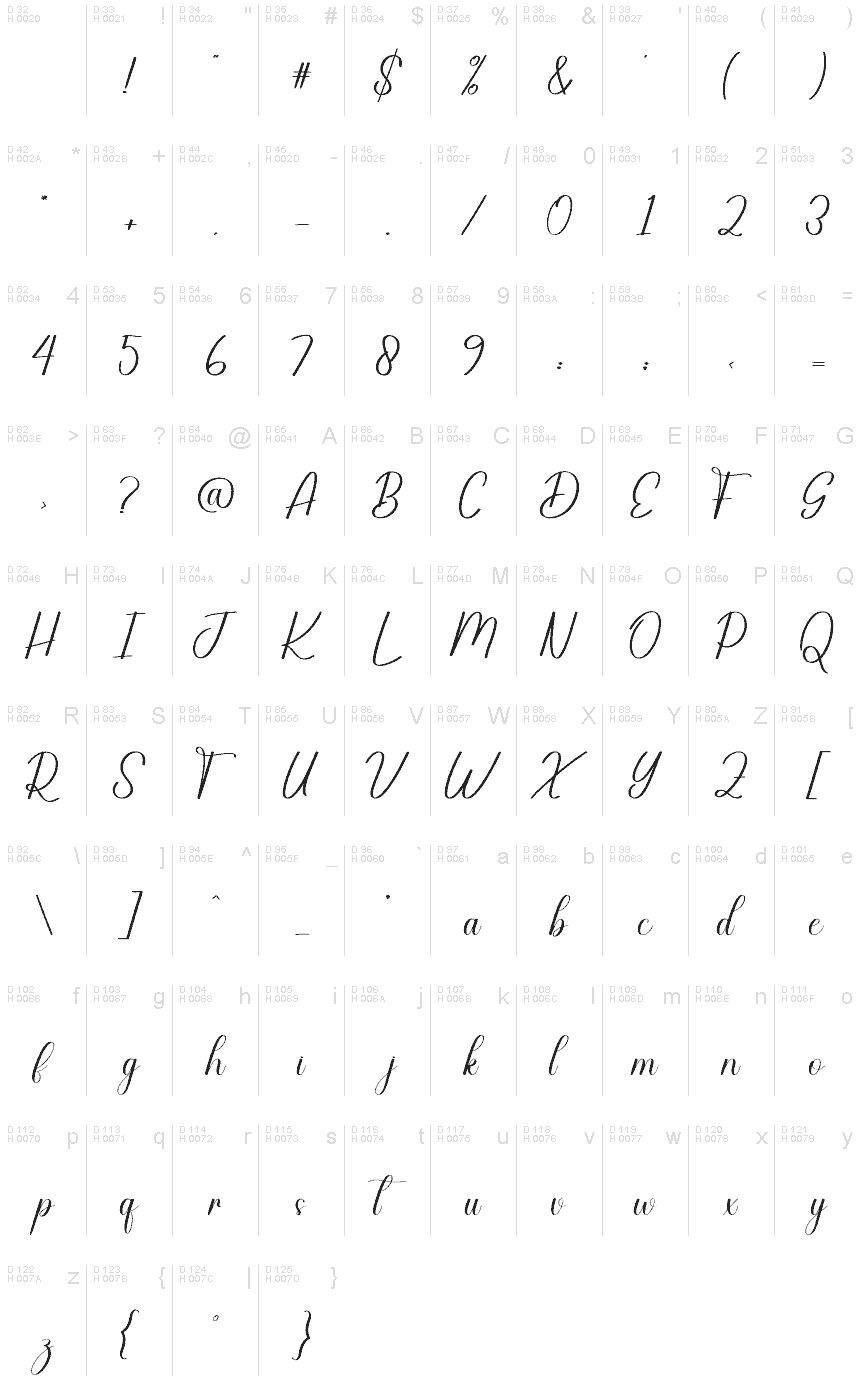
Badgers
Badgers font is an elegant free handwritten font from Scratchones with a flowing and formal style. The script type font features sophisticated use of condensed characters, rounded corners, and graceful curves that lend the lettering an artistic vibe. The masterful combination of the various elements makes this stylish font stand out.
Badgers can design wedding invitations, greeting cards, certificates, coupons or branding projects where a subtle aesthetic touch is required. It’s also great for flyers and brochures promoting beauty salons & products. Other great uses include typographic posters, banners or adverts for social media platforms such as Instagram and Facebook posts.